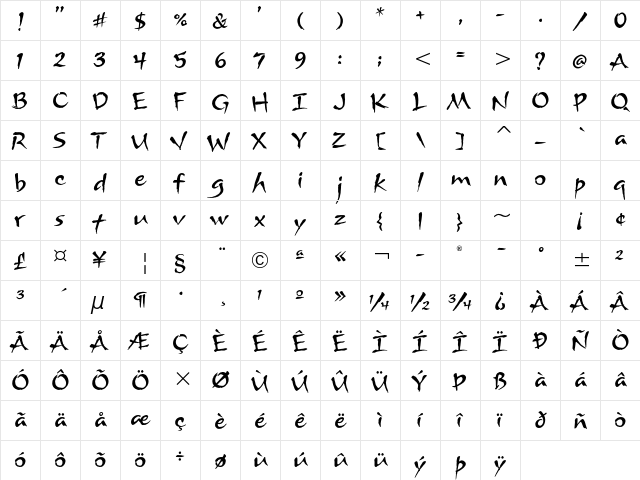
Arnova ITC Std Regular
| Designer | Genevieve Cerasoli |
Design Context for Arnova ITC Std Typeface
Arnova ITC Std is a composed and adaptable typeface that performs quietly and consistently across a wide range of design contexts.